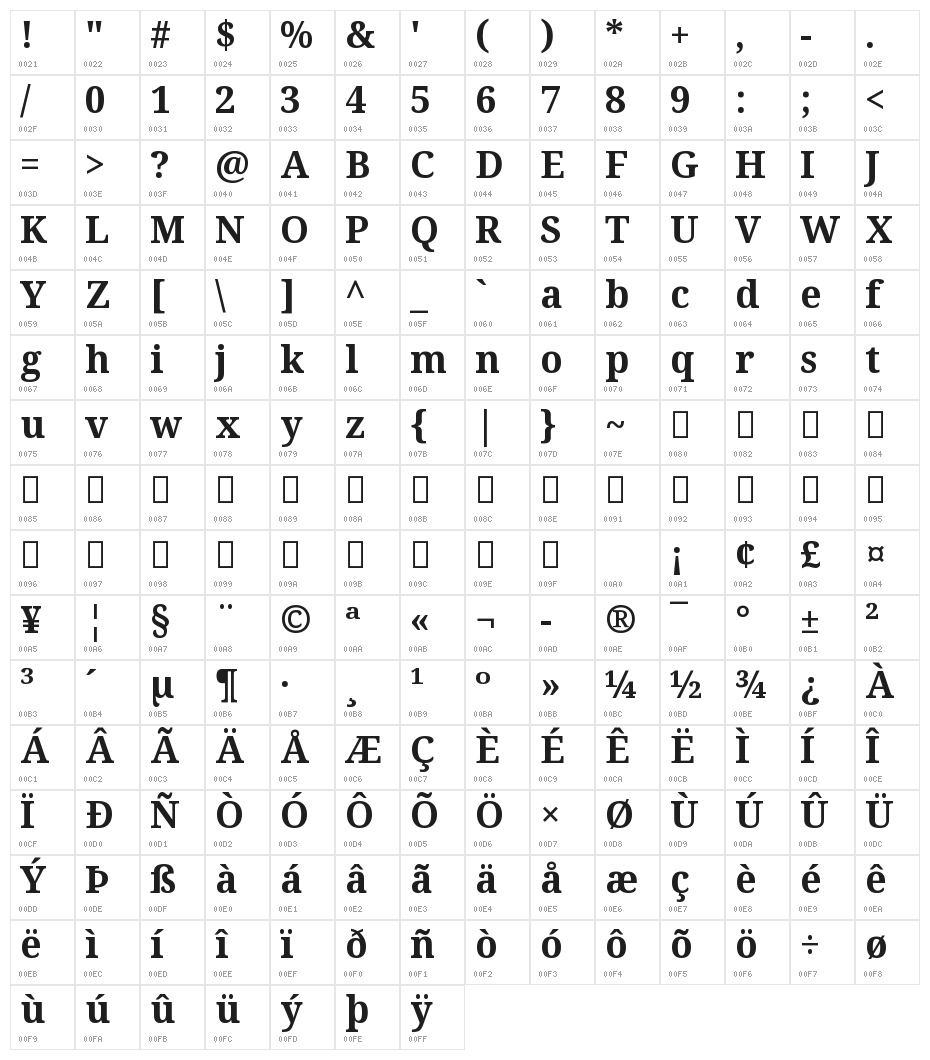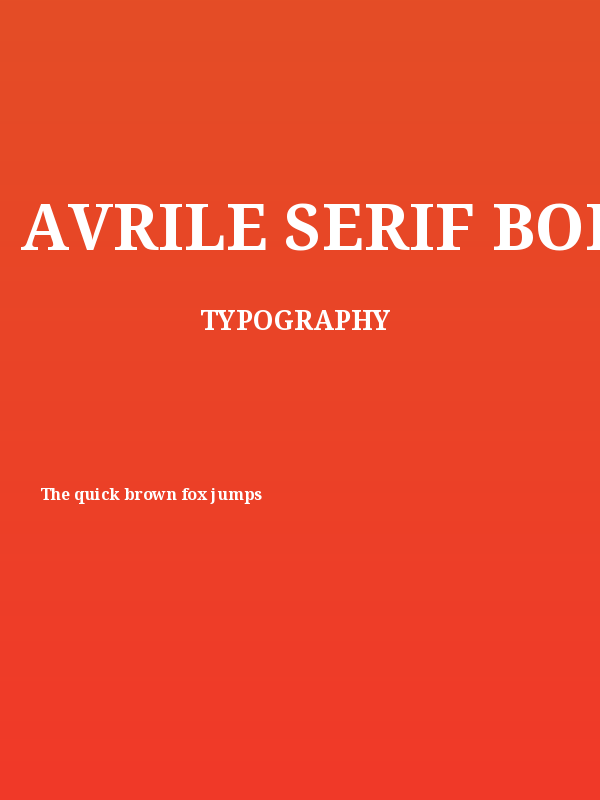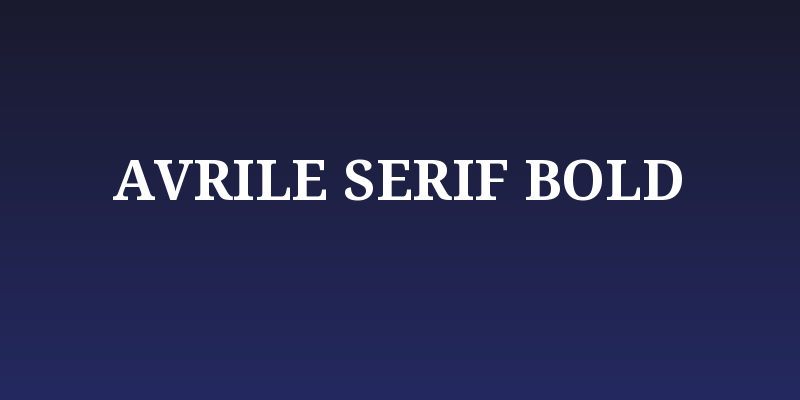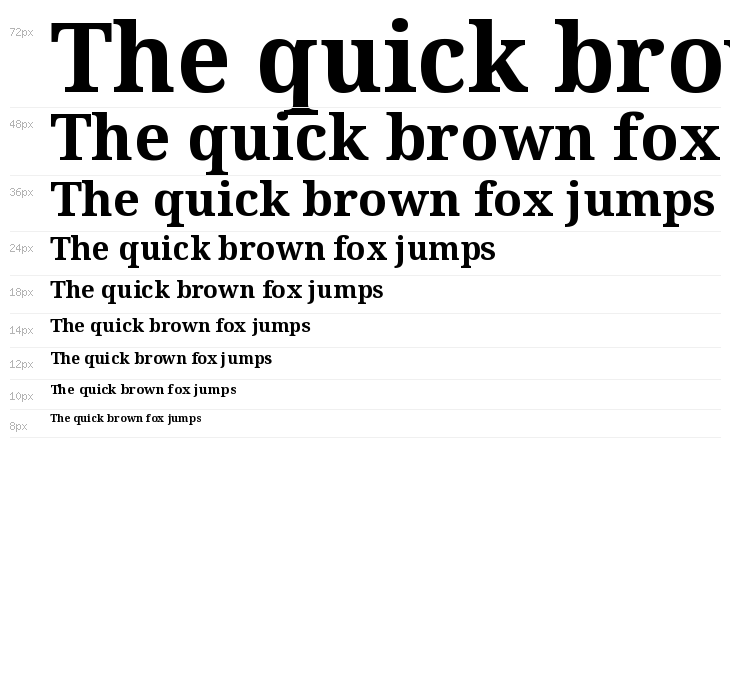
Avrile Serif Bold Font
Avrile Serif Bold Description
This serif font exudes a classic and authoritative presence, characterized by its bold weight and traditional serif details. The uppercase letters are robust and commanding, while the lowercase letters maintain a consistent and harmonious flow. The numerals are clear and legible, making them suitable for both display and text settings. Special characters are well-defined, ensuring versatility across various applications. The overall design balances elegance with readability, making it a timeless choice for a wide range of projects.
| Proposed Projects | Ideal for book covers, editorial layouts, branding, and formal invitations. |